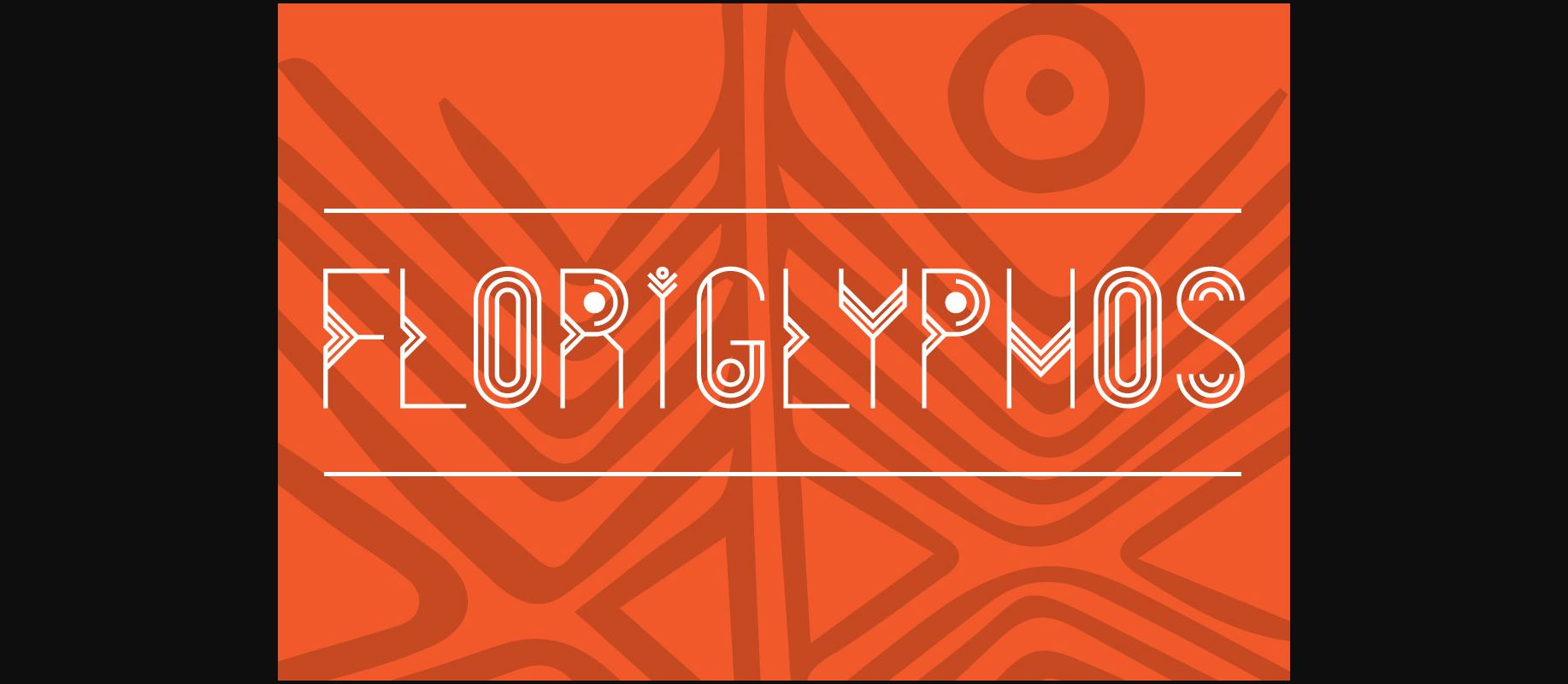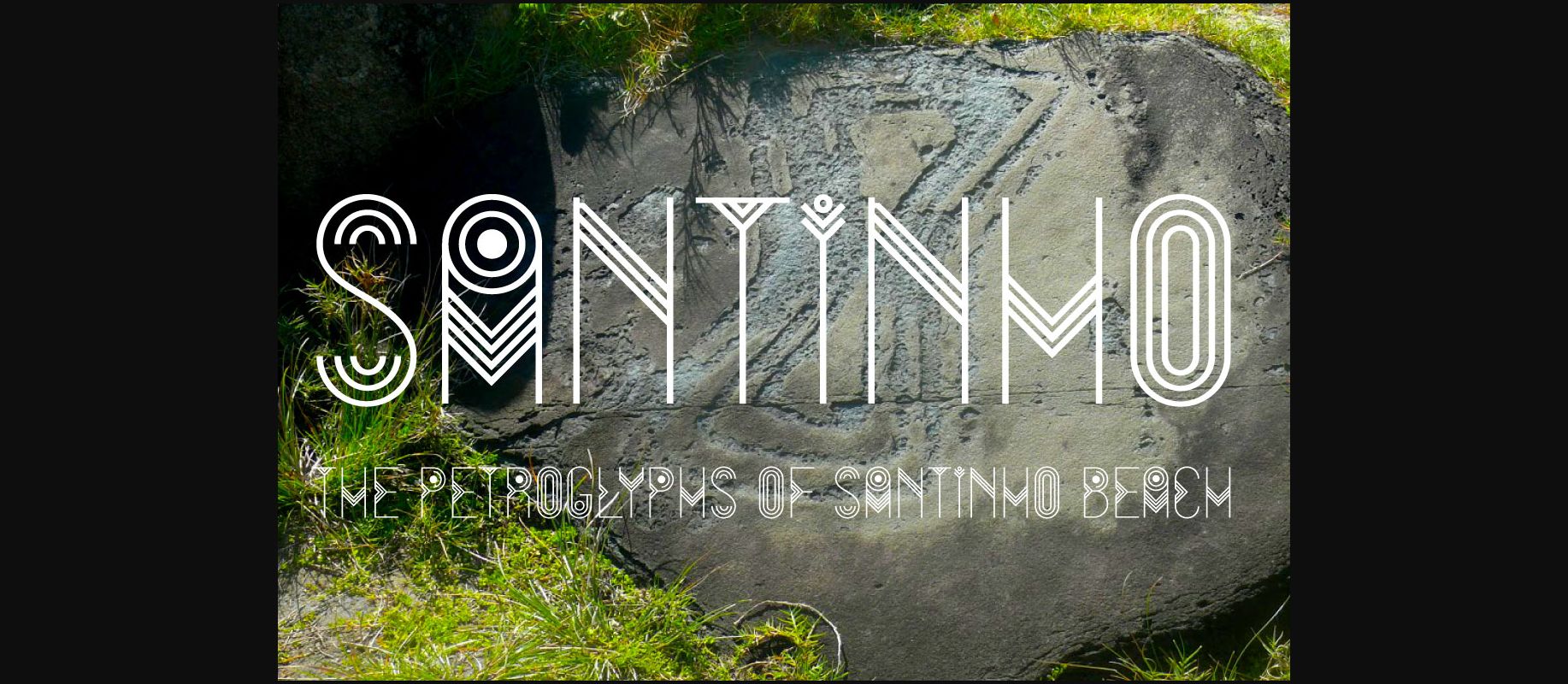
About FloriGlyphos Font
Built from the petroglyphs found on the island of Santa Catarina – Brazil. With elemental geometric signs and figurative human representations. It is a printer with a decorative characteristics of Art Deco.